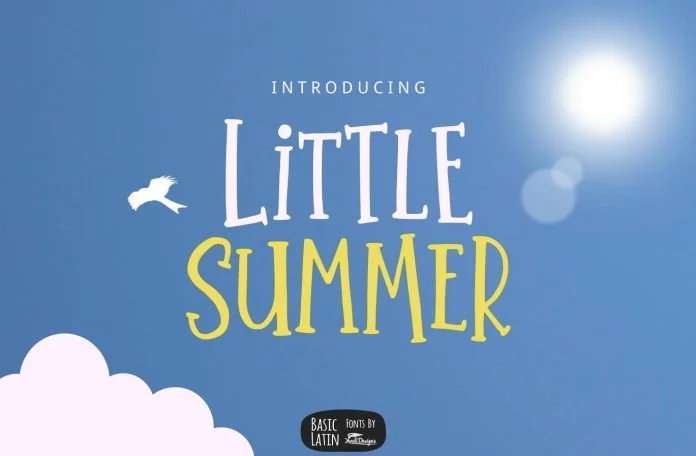
Little Summer Font is perfect for children's summer camp branding, playful vacation promotions, sunny beach club signage, cheerful ice cream packaging, fun pool party invitations, bright children's clothing labels, joyful summer festival posters, delightful seasonal campaigns, vibrant kidswear branding, and adorable summer memory projects.
Little Summer Font is exciting because it radiates pure sunshine joy and carefree childhood wonder through playful, bouncy letterforms that evoke endless summer days, beach adventures, and innocent happiness with irresistible charm. This delightfully designed typeface combines summer vacation aesthetics with child-friendly functionality, making it perfect for brands that want to communicate youthful joy, seasonal fun, and endless summer magic that captures childhood memories.
The Little Summer Font family includes cheerful weights with summer-inspired character styling, featuring sunny design elements and playful decorative variations. The font showcases beach design details, vacation-optimized proportions, and joyful character characteristics that create a comprehensive typographic system for seasonal and children-focused brand applications.
Little Summer Font Free Download provides designers with access to premium seasonal typography that brings authentic summer childhood character to contemporary family design projects. This lovingly crafted typeface has been developed to capture the pure joy and carefree spirit of summer childhood while ensuring optimal performance in family-friendly marketing applications. The font's sunny character and childlike appeal make it ideal for children's brands and summer-focused businesses.
The summer sophistication of Little Summer Font makes it an invaluable tool for children's camps, family entertainment venues, and seasonal brands that need typography capable of communicating childhood joy and summer magic. The font's playful character helps establish connections with families seeking fun summer experiences, childhood adventures, and seasonal celebrations that create lasting memories for children and parents alike.
Summer camps, children's clothing brands, and family entertainment companies consistently choose Little Summer Font for its ability to convey summer joy and childhood sophistication through typography. The font excels in applications where establishing family credibility and seasonal appeal are essential to brand positioning, making it particularly effective for children's products, summer services, and family brands targeting parents and children.
This font's comprehensive character set includes summer-inspired letterforms, sunny numerals, cheerful punctuation marks, and vacation symbols that support authentic childhood summer typography composition. The consistent joyful styling maintains the little summer theme throughout all characters while ensuring professional readability across all seasonal and children's design projects requiring Little Summer Font Free Download functionality.